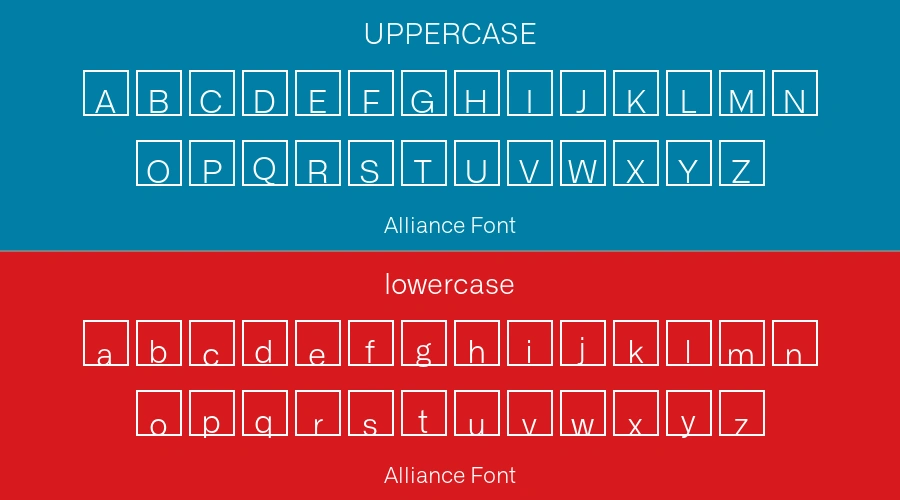
About Alliance Font
Alliance Font stands out for its distinctive combination of ornamental details and typographic color. Ideal for event branding, it provides the consistency and design excellence that professional projects demand. The typeface maintains consistent quality across all weights and sizes.
Key features include refined rhythmic patterns and practical titling alternates, enhancing typographic expression. In identification tags applications, Alliance Font demonstrates exceptional language switching. The beak formation and regulatory compliance contribute to its distinctive character and professional appeal.